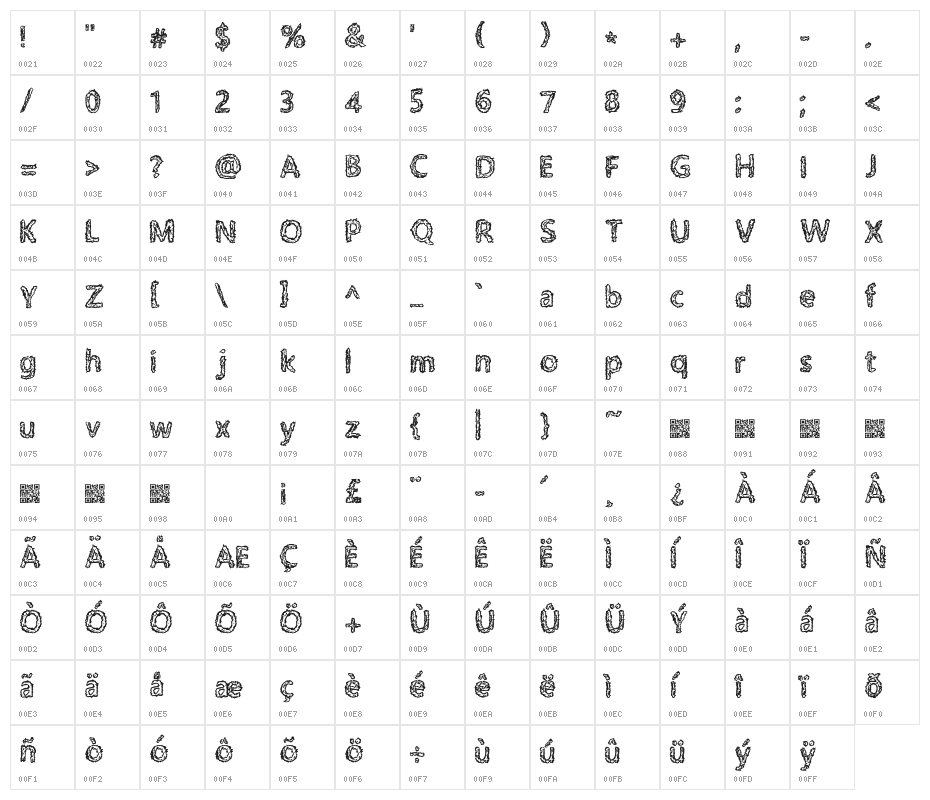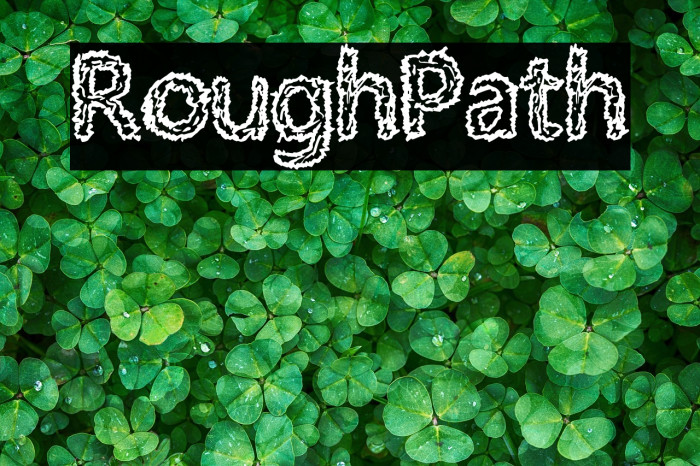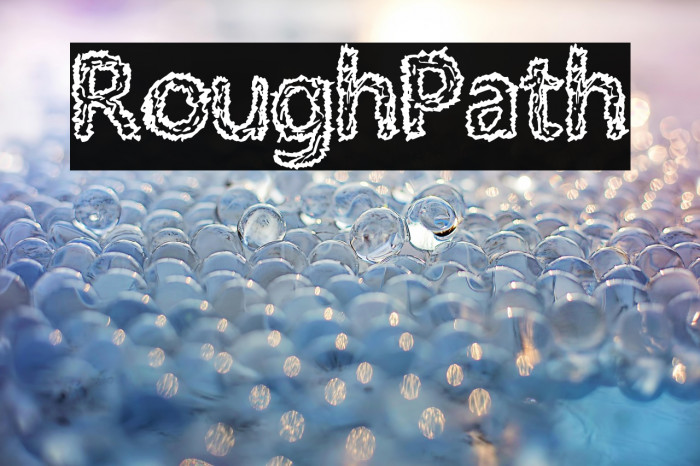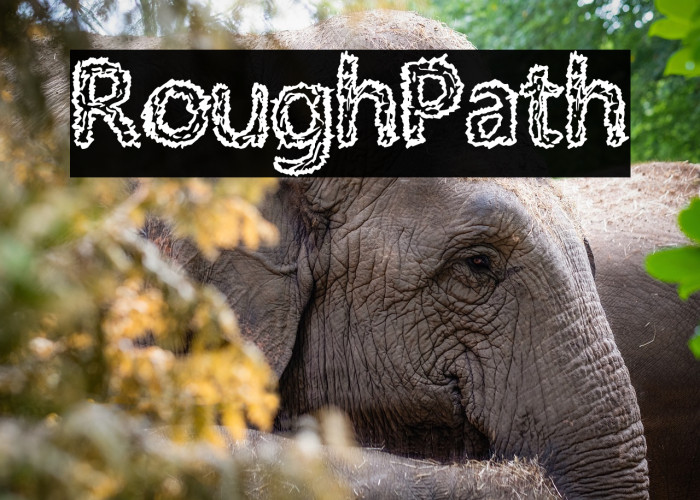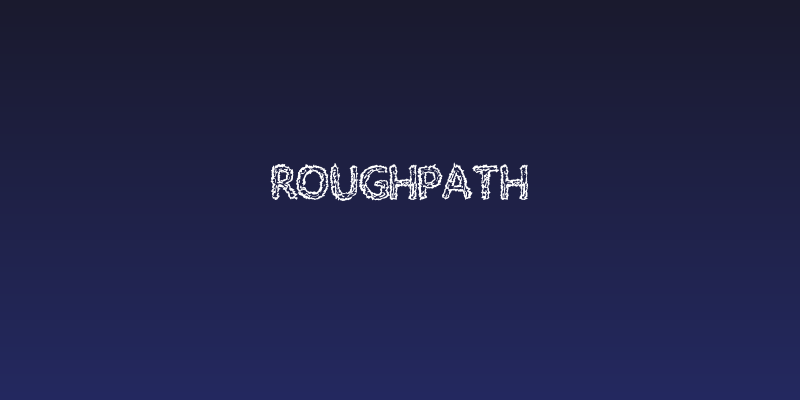
RoughPath Font
RoughPath Description
This font features a rugged, hand-drawn aesthetic with a textured, sketch-like appearance. The characters are bold and irregular, giving them a dynamic and energetic feel. The rough edges and uneven lines contribute to a raw, organic look, making it ideal for projects that require a touch of authenticity and creativity. The uppercase and lowercase letters maintain a consistent style, while the numbers and special characters complement the overall design. This font is perfect for artistic and unconventional applications.
| Use Case | Headlines, Logos, Artistic projects |
| Proposed Projects | Ideal for posters, album covers, artistic branding, and creative projects that require a unique and edgy look. |